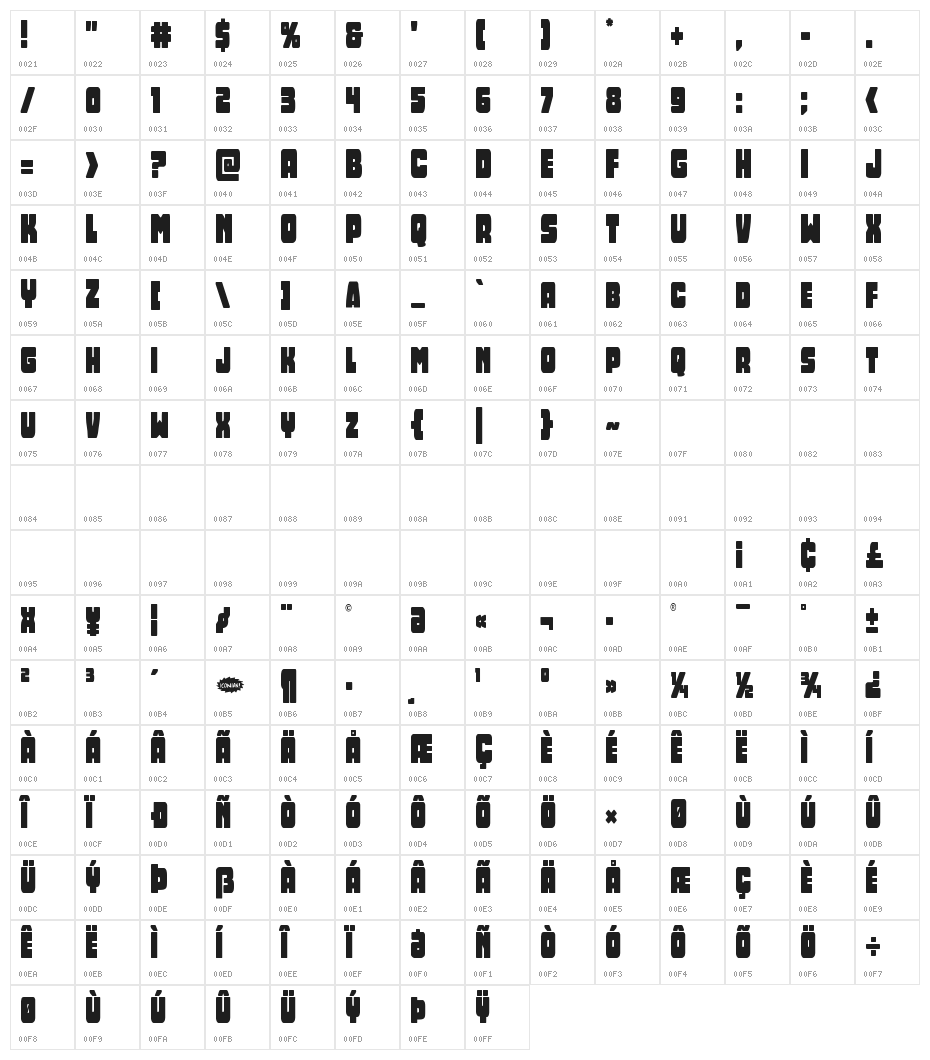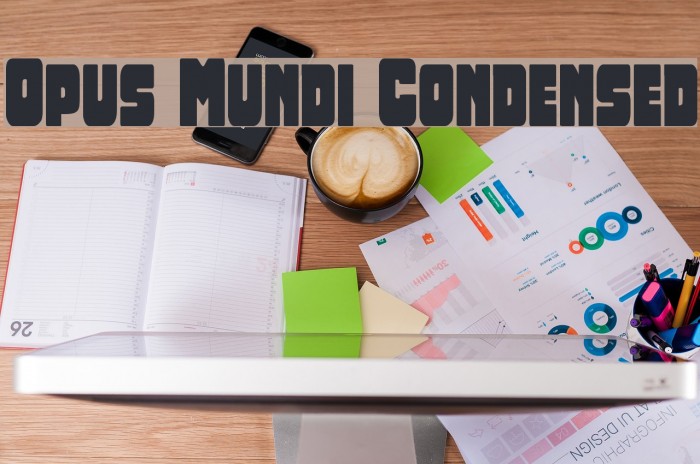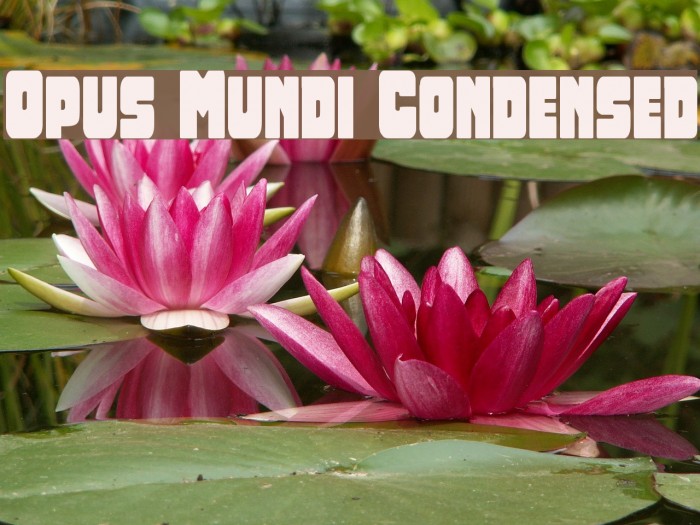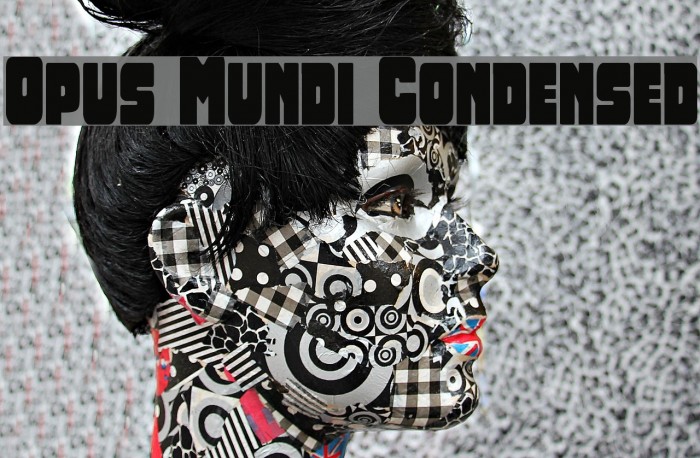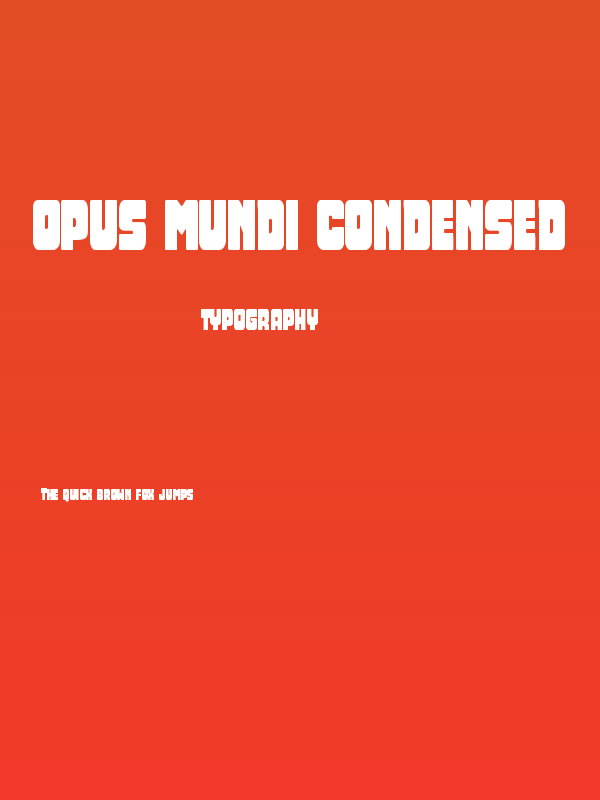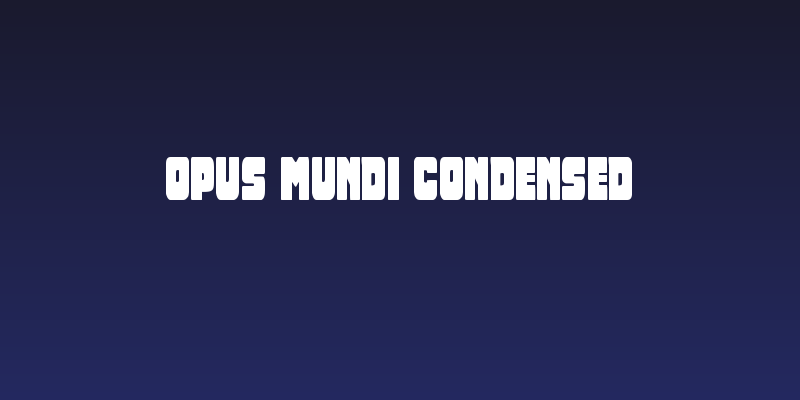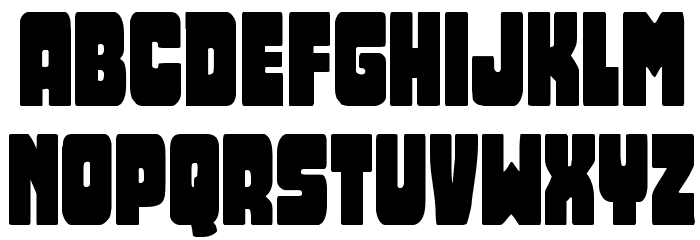
Opus Mundi Condensed Font
Opus Mundi Condensed Description
This font features a bold and impactful design with a condensed width, making it ideal for creating strong visual statements. The characters are uniformly thick, providing a sense of solidity and strength. The uppercase and lowercase letters maintain a consistent style, with rounded edges that soften the overall appearance. The numbers and special characters are designed to match the boldness of the alphabet, ensuring a cohesive look across all elements. This font is particularly suitable for projects that require a modern and assertive aesthetic.
| Proposed Projects | Ideal for posters, headlines, branding, and advertising where a strong visual impact is needed. |